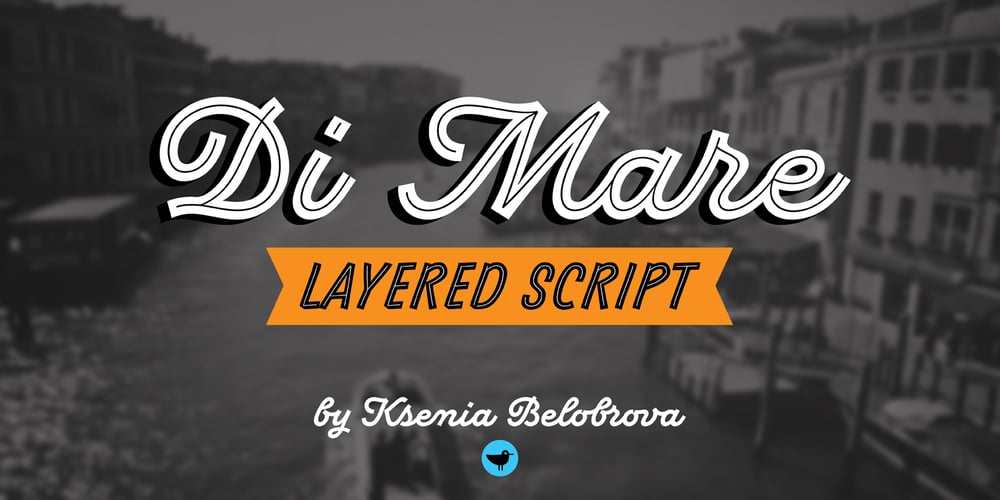
Di Mare Font Family was designed by Ksenia Belobrova and published by Ksenia Belobrova. Di Mare contains 3 styles and family package options. Di Mare is a layered script inspired by Italian restaurant and cafe signs. It’s about delicious food and the joyful atmosphere of traveling: freedom, sea, fresh wind and warm sun. This font family has three styles: Regular, Line, Shadow. You can combine and overlay them to get different effects. Di Mare works well for menu, packaging, clothes, signs, magazines, and as a starting point for lettering and logos. Di Mare is designed with hundreds of contextual alternates and ligatures. It makes all connections look natural and harmonious. Di Mare supports most European languages, has small capitals, numbers, fractions, currency and mathematical signs. All contextual alternates are built into the “Liga” feature that is turned on by default. However, when your work with typeface, please make sure that “Liga” is turned on.